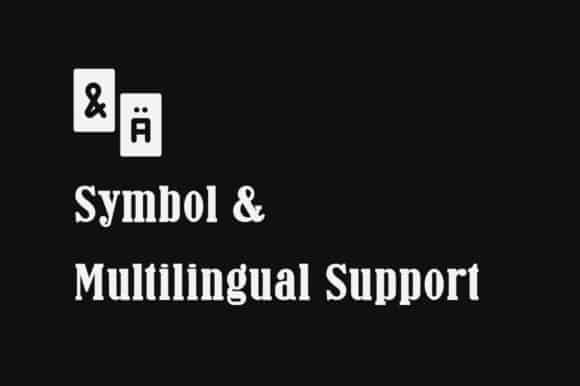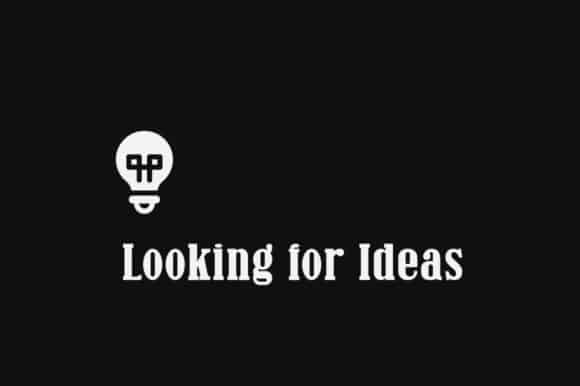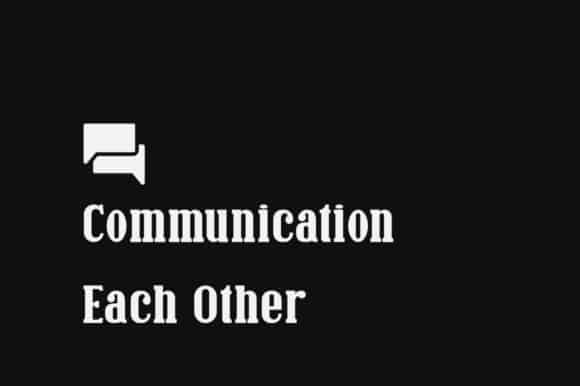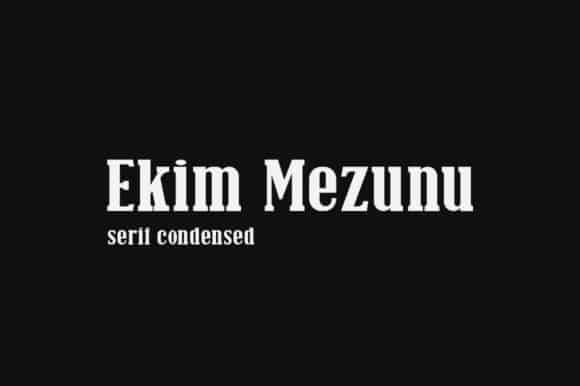
Ekim Mezunu Slab Serif Font
Introducing Ekim Mezunu Slab Serif Font – A sophisticated display, slab serif typeface with acute contrast. Perfectly suited for fashionable and luxurious brands. This has been carefully designed with beautiful details and abundant variety. Ekim Mezunu Slab Serif Font is designed and shared by AmruID. This Font is a serif font condensed. Masterfully designed to become a true favorite, this font has the potential to bring each of your creative ideas to the highest level!